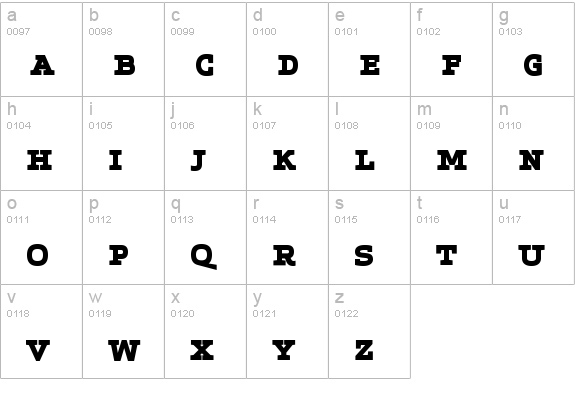
ApexSerif-BoldCaps is a bold and eye-catching font that exudes strength and elegance. Its distinctive serif style with uppercase letters commands attention and makes a statement. Whether used for headlines, titles, or logos, this font adds a touch of sophistication to any design project. What sets ApexSerif-BoldCaps apart is not only its striking appearance but also its versatility. It can be paired with other fonts for a modern and refined look, or used on its own to create a bold and impactful visual presence. And the best part? ApexSerif-BoldCaps is completely free to download at FontsMarket.com. Now you can enhance your designs with this premium font without breaking the bank. Don't miss out on the opportunity to elevate your projects with the timeless appeal of ApexSerif-BoldCaps. Download it today and let your creativity shine!